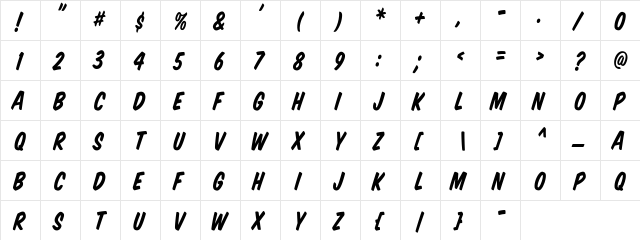
VTCSuperMarketSaleItalic Regular
Design Context for VTCSuperMarketSaleItalic Typeface
VTCSuperMarketSaleItalic offers clean, dependable letterforms without strong stylistic allegiance, making it a practical choice for designers who need flexibility. The dynamic lean of this cut emphasises speed and emphasis in any layout.
Pro Tip: Use VTCSuperMarketSaleItalic for emphasis, pull quotes, and subheadings where its slanted energy can add rhythm to the layout.